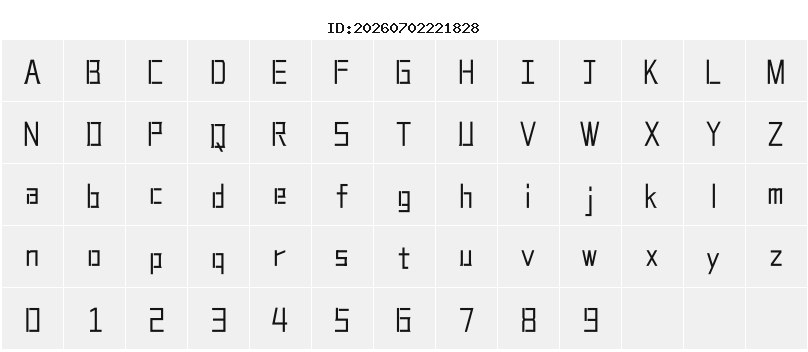
227-上首晴竹体 Preview
About 227-上首晴竹体.ttf
227-上首晴竹体.ttf is a modern, elegant sans-serif font designed for ultimate readability and visual harmony. Perfect for branding, headlines, web design, and print materials.